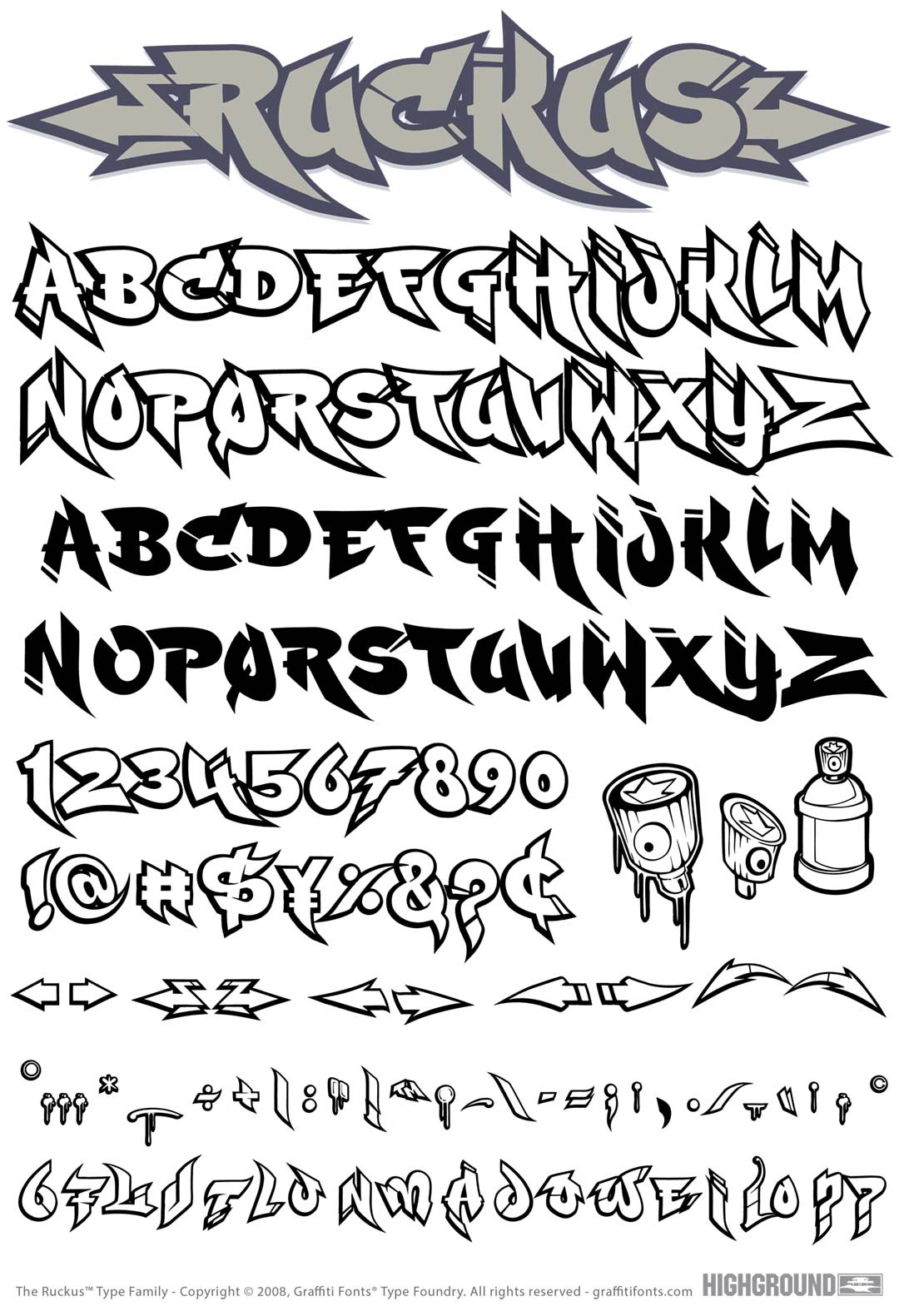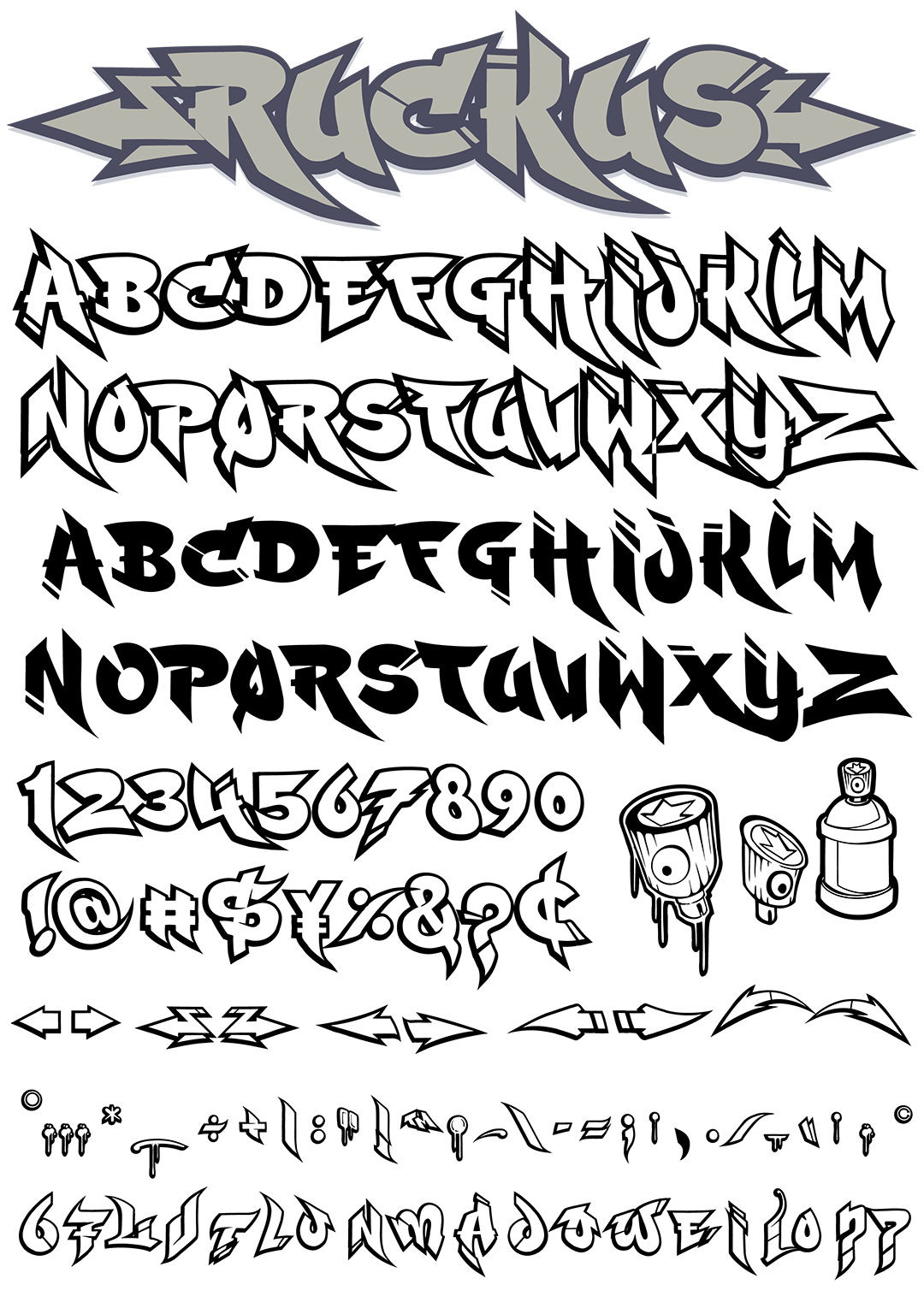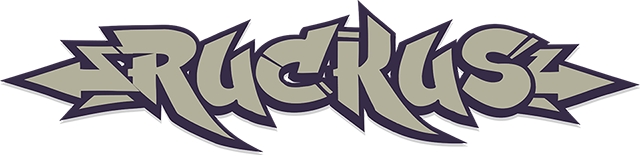
Ruckus Font
Ruckus Graffiti Alphabet
Ruckus Graffiti Font Family
156 characters in a classic graffiti style. Lettering & artwork, numbers, symbols, arrows and more are all included. This typeface features solid fill style letters as well as a thick, crisp outline style which can be layered seamlessly together for a, iconic graffiti look.